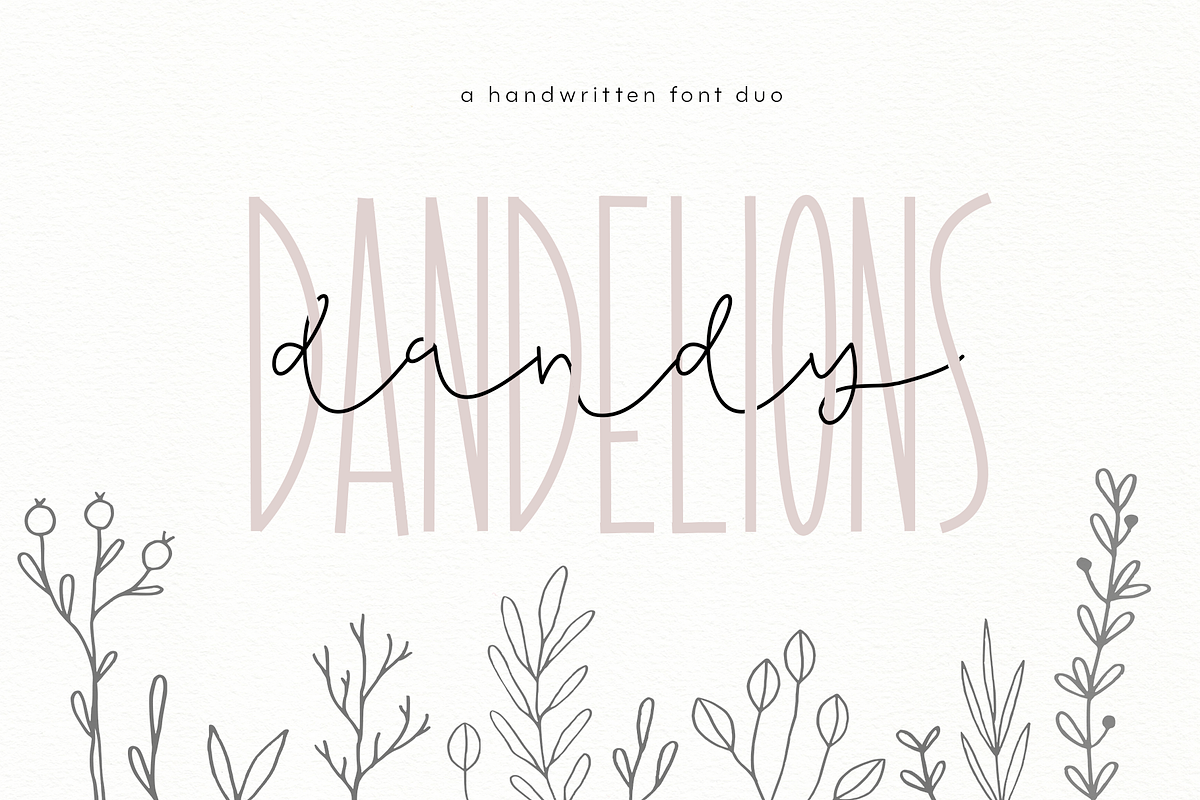
Dandy Dandelions - A Script Font Duo Free Download
Dandy Dandelions - A Script Font Duo Free Download is a charming and whimsical font pairing designed to add personality and elegance to your designs. Featuring a playful script font combined with a clean, complementary sans-serif, this duo is perfect for logos, branding, invitations, social media content, and more. The script font’s fluid, organic curves bring a touch of charm, while the sans-serif offers balance and clarity. Whether you're working on a creative campaign, a wedding invite, or a fun brand identity, Dandy Dandelions - A Script Font Duo Free Download lets you explore its beautiful style in personal projects before purchasing a commercial license. Add a fun, stylish, and sophisticated touch to your designs with this lovely script font duo.